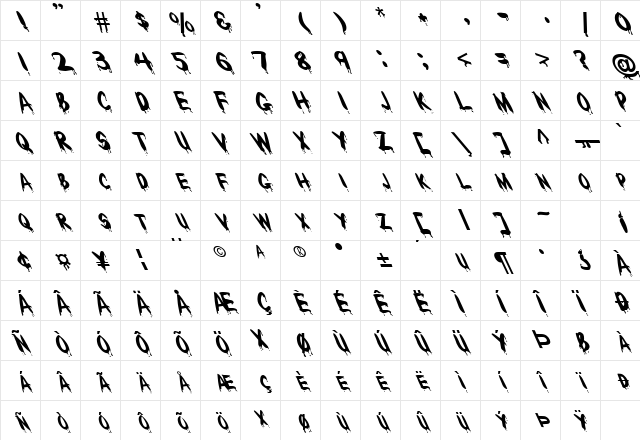
Complete FZ UNIQUE 29 LEFTY Normal glyph index. Displaying only characters natively supported by FZ UNIQUE 29 LEFTY Normal font.
FZ UNIQUE 29 LEFTY is a composed and adaptable typeface that performs quietly and consistently across a wide range of design contexts.